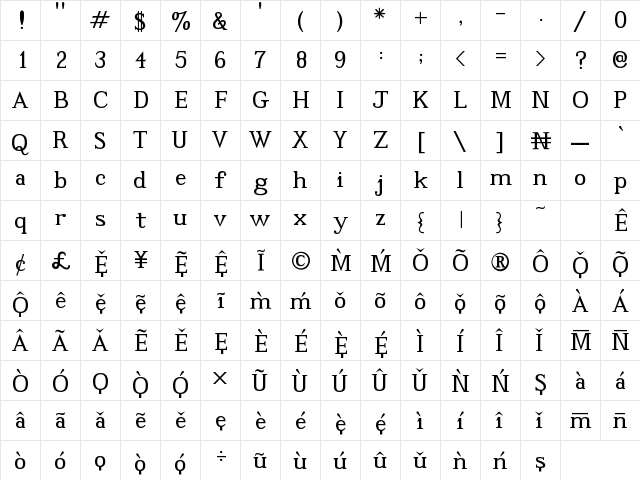
Code9999 Regular
Design Context for Code9999 Typeface
Code9999 brings the precise, column-aligned rhythm of monospaced typography to designs that value technical clarity and systematic order.
A natural fit for code editors, technical documentation, developer-focused branding, and terminal-inspired UI.
Pro Tip: Pair Code9999 with a proportional sans for UI contexts where code-style labels and regular body copy need to coexist.